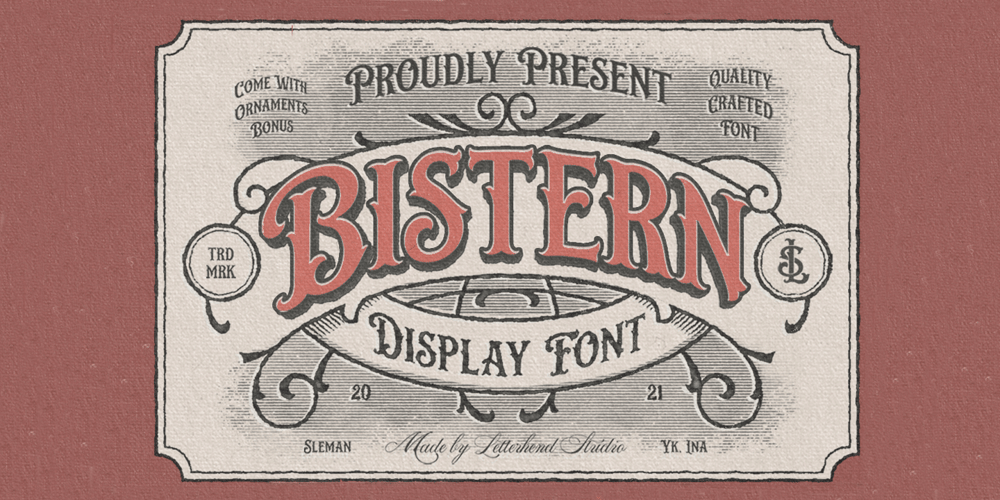
Bistern Font Family was designed by Hendry Juanda and published by Letterhend. Bistern contains 1 styles and family package options. About the ProductBistern is a typeface which is inspired by vintage lettering sign and art. While this font has a victorian touch, it still looks bold and solid. Very suitable for for headline, logotype, apparel, invitation, branding, packaging, advertising etc with old school / retro theme.This typeface contains with beautiful decorative ornaments in vector format that ready to use to create a vintage lettering in sec. It also comes in uppercase, lowercase, punctuations, symbols & numerals, stylistic set alternate, ligatures, etc also support multilingual and already PUA encoded.Features : ornaments in vector format uppercase & lowercase numbers and punctuation multilingual alternates and ligatures swashes PUA encoded We highly recommend using a program that supports OpenType features and Glyphs panels like many of Adobe apps and Corel Draw, so you can see and access all Glyph variations. How to access opentype feature : letterhend.com/tutorials/using-opentype-feature-in-any-software/